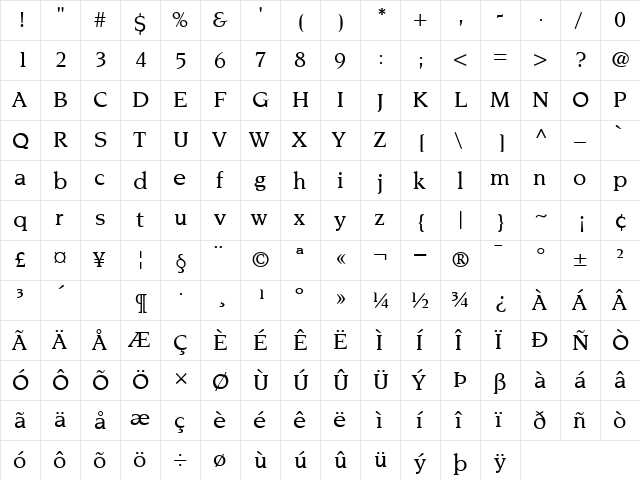
Novarese Medium
Design Context for Novarese Typeface
Novarese is a composed and adaptable typeface that performs quietly and consistently across a wide range of design contexts.
Pro Tip: Use Novarese in both headline and body roles to test its range before committing to a single application.